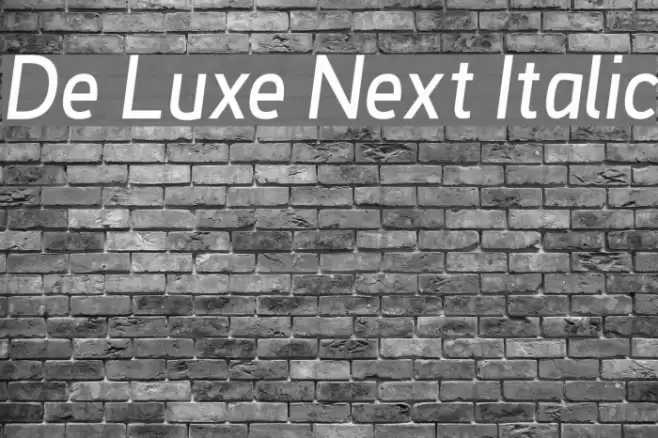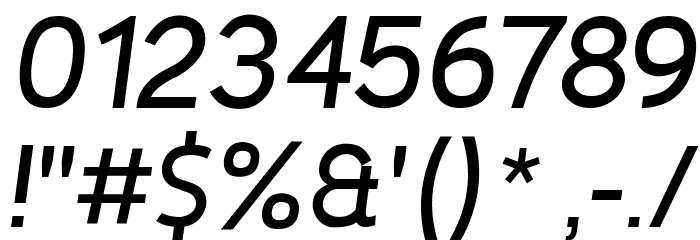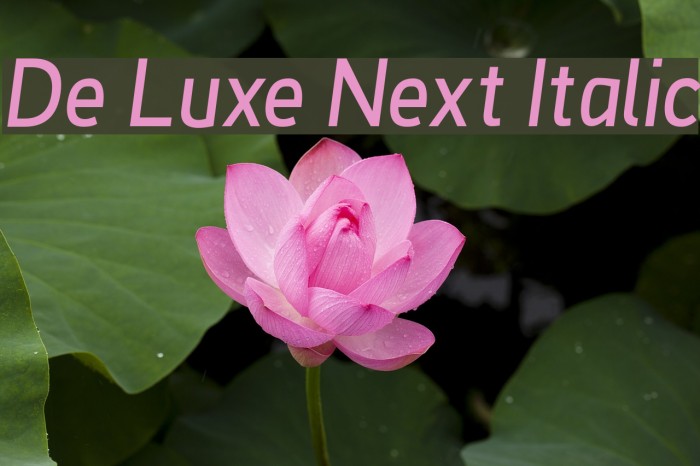
De Luxe Next Italic Font
De Luxe Next Italic Description
This font features a sleek, modern design with a slight italic slant, giving it a dynamic and forward-moving appearance. The characters are clean and sans-serif, contributing to a contemporary and professional look. The strokes are consistent in weight, providing a uniform appearance across all characters. The font maintains a normal width, ensuring readability while still conveying a sense of elegance and sophistication. The character spacing is normal, allowing for clear distinction between each letter, which enhances legibility. The overall style is modern and suitable for various digital and print applications.
A modern, italic sans-serif font with clean lines and a professional appearance from Uncategorized fonts.
- Proposed Projects: Ideal for corporate branding, digital interfaces, modern advertising, and editorial design.